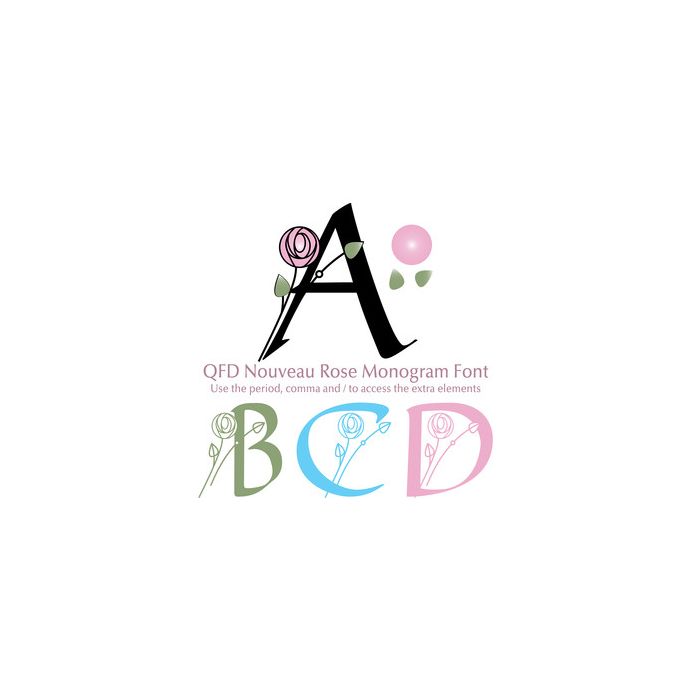
Designed in the style of Charles Rennie Mackintosh. Combine this fun font with the other QFD Monogram fonts! See our detailed monograms tutorial by clicking the Instructions button.
To access the extra elements, use the period, comma and /.